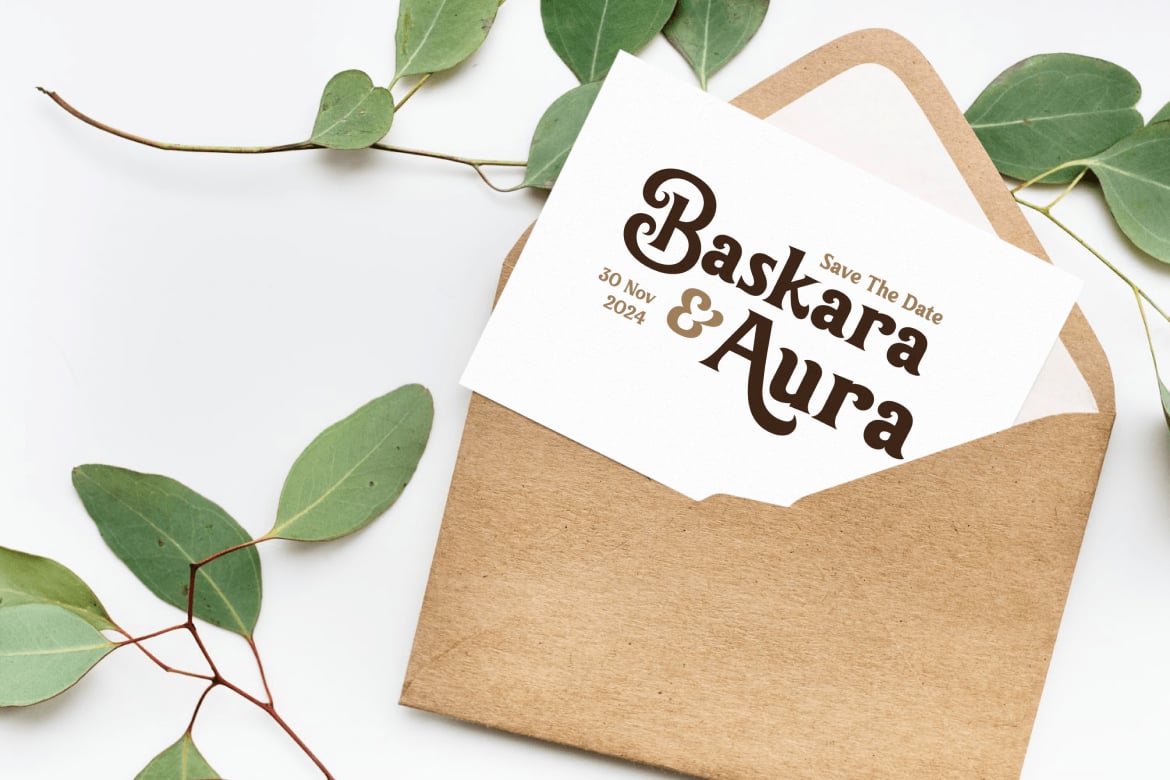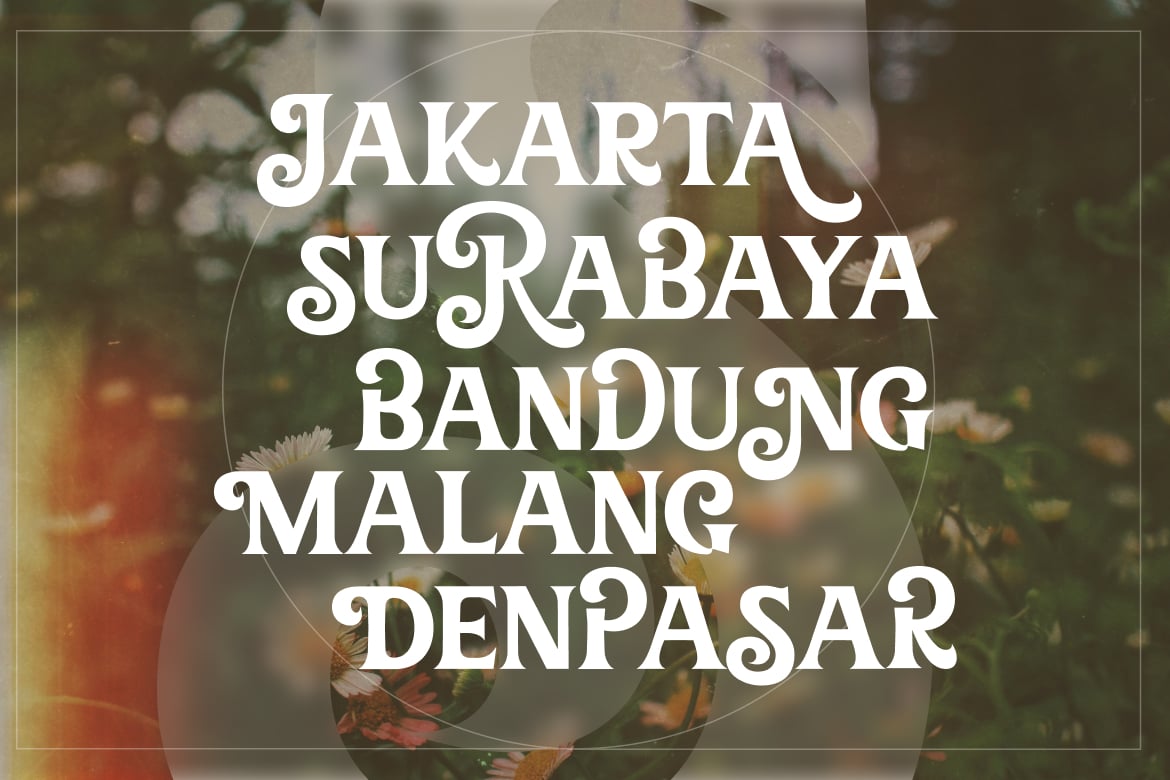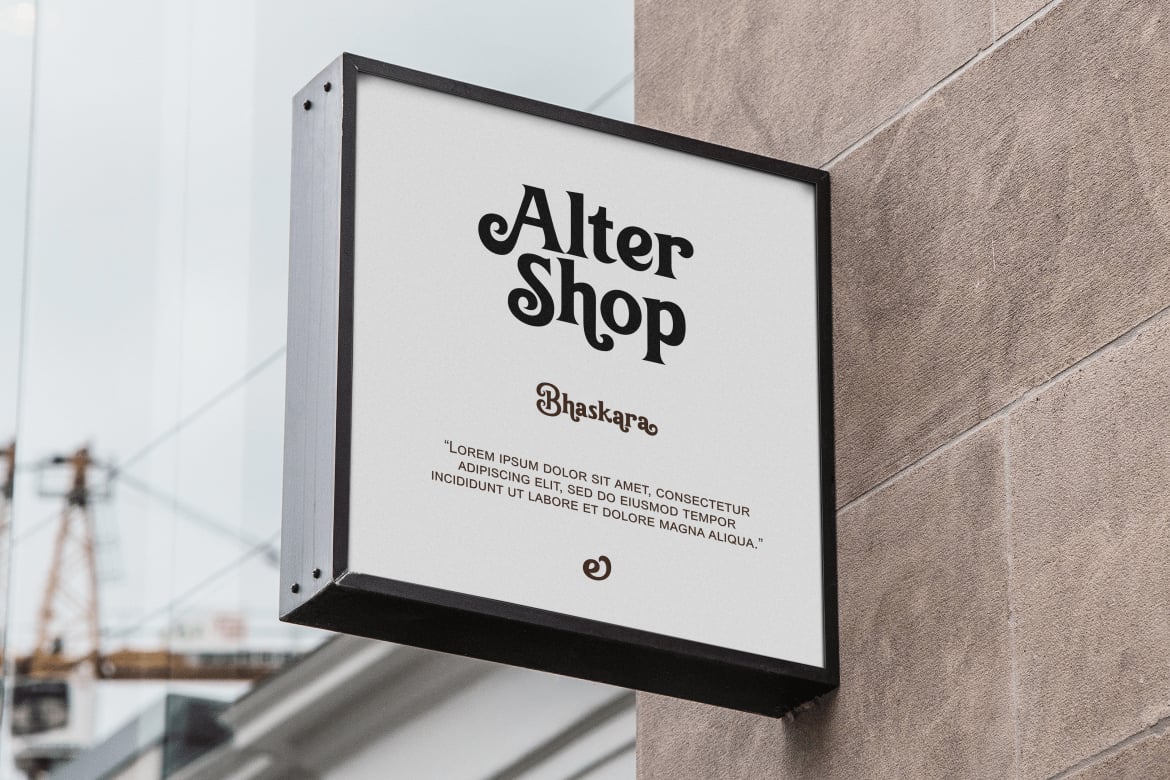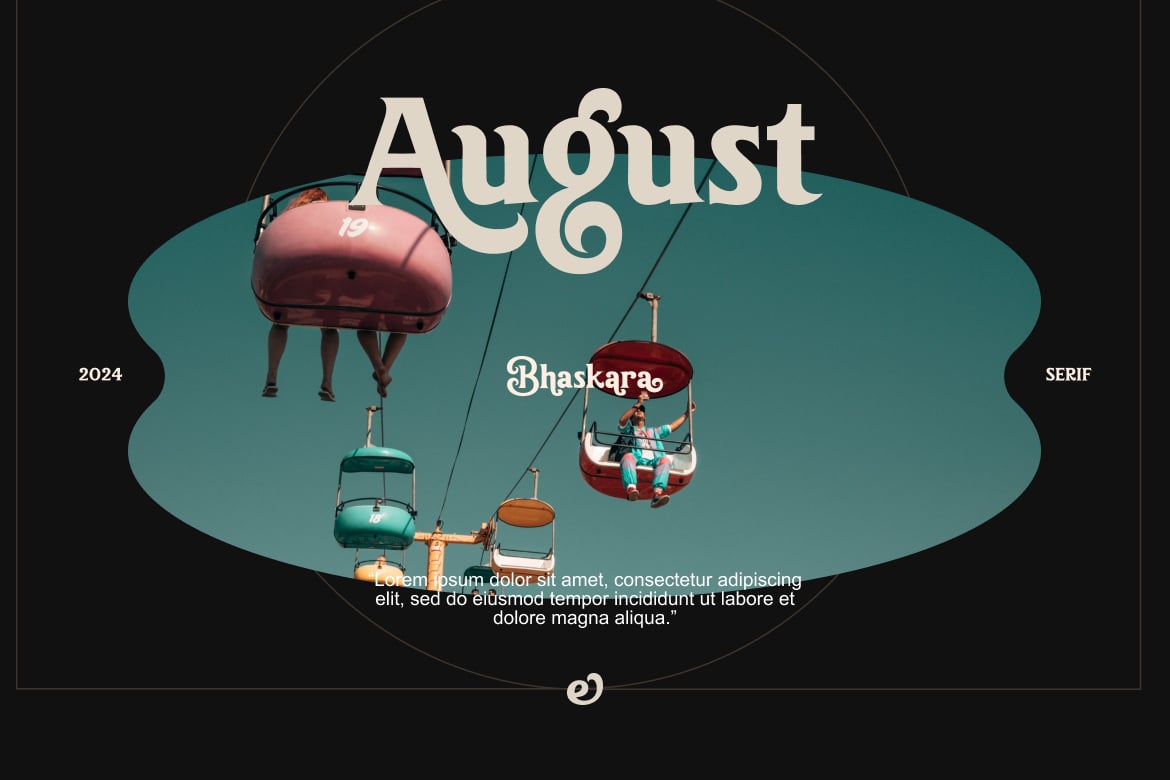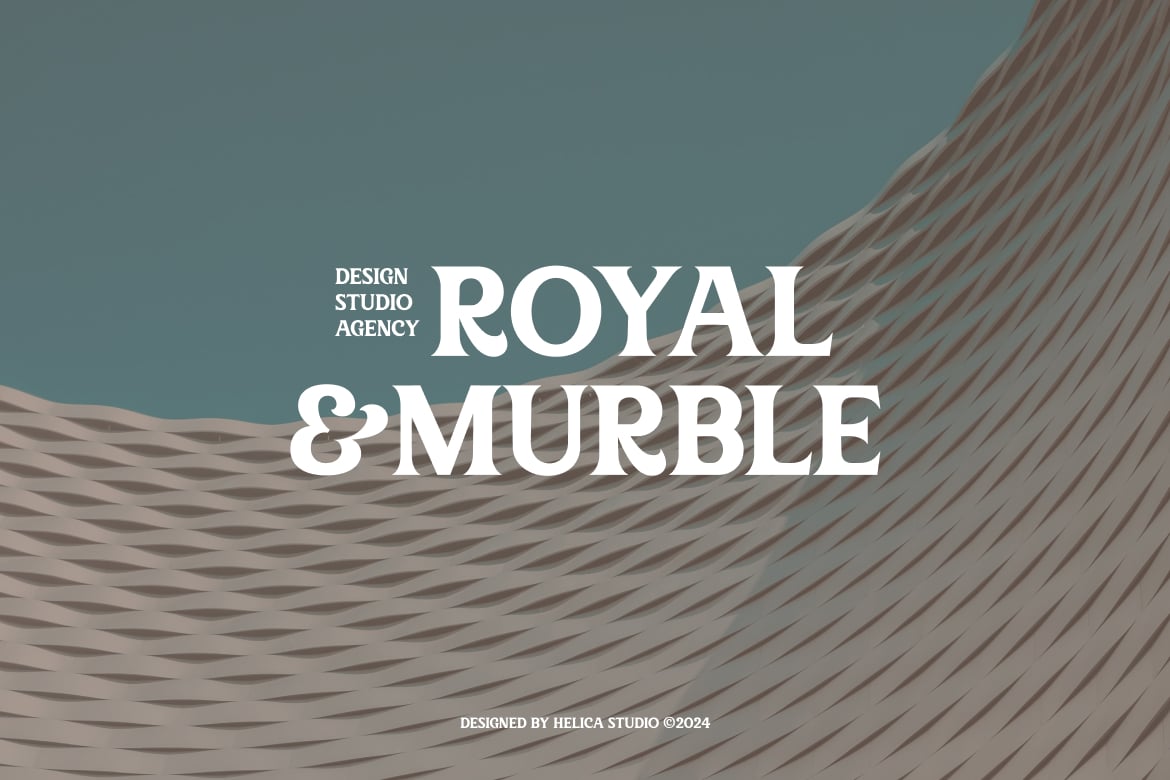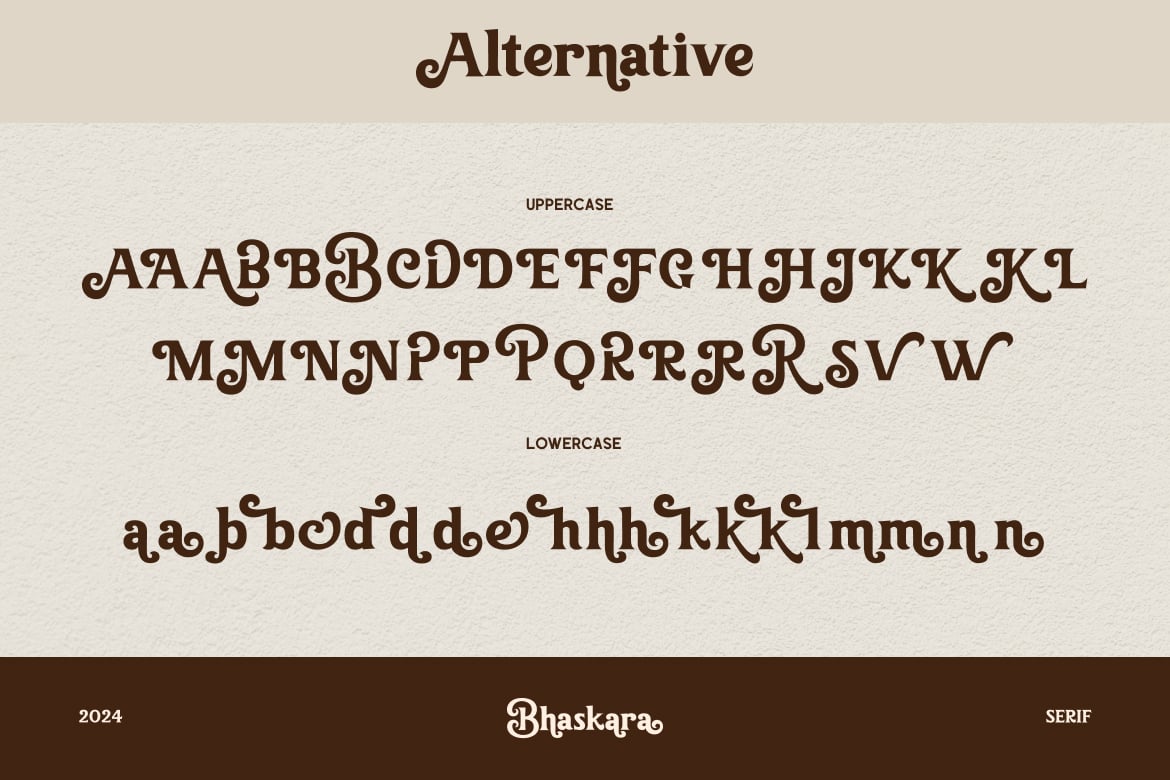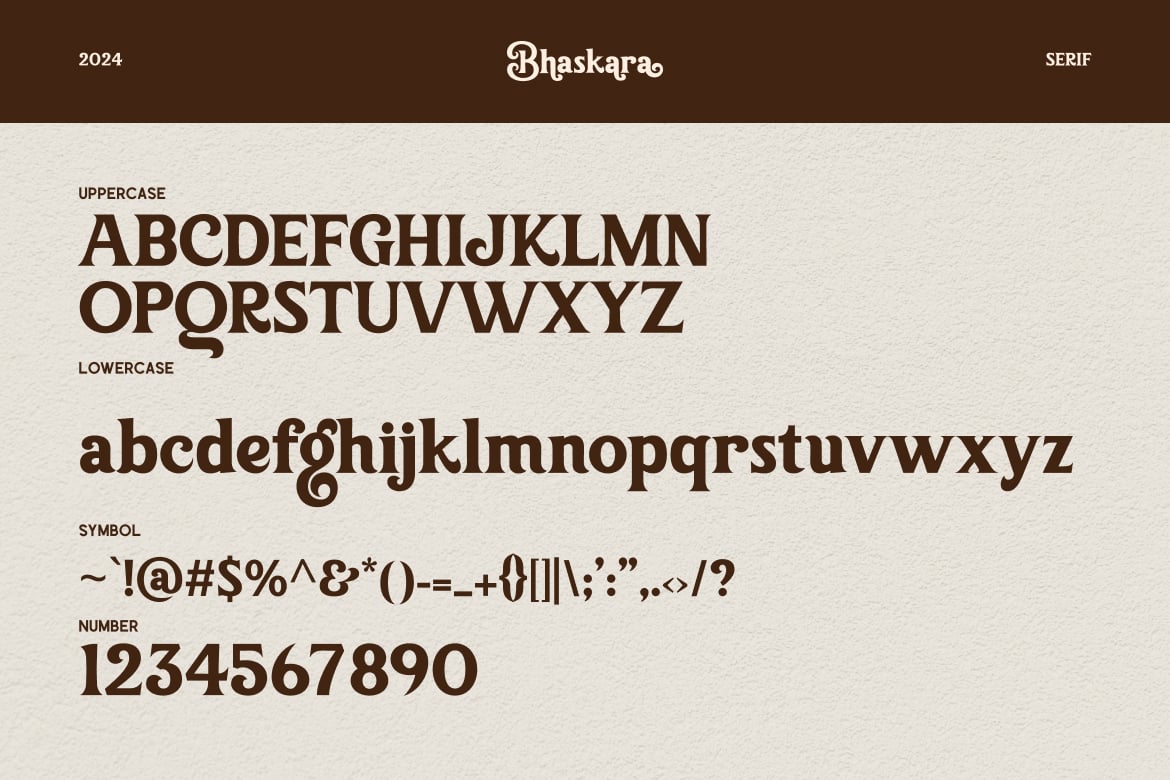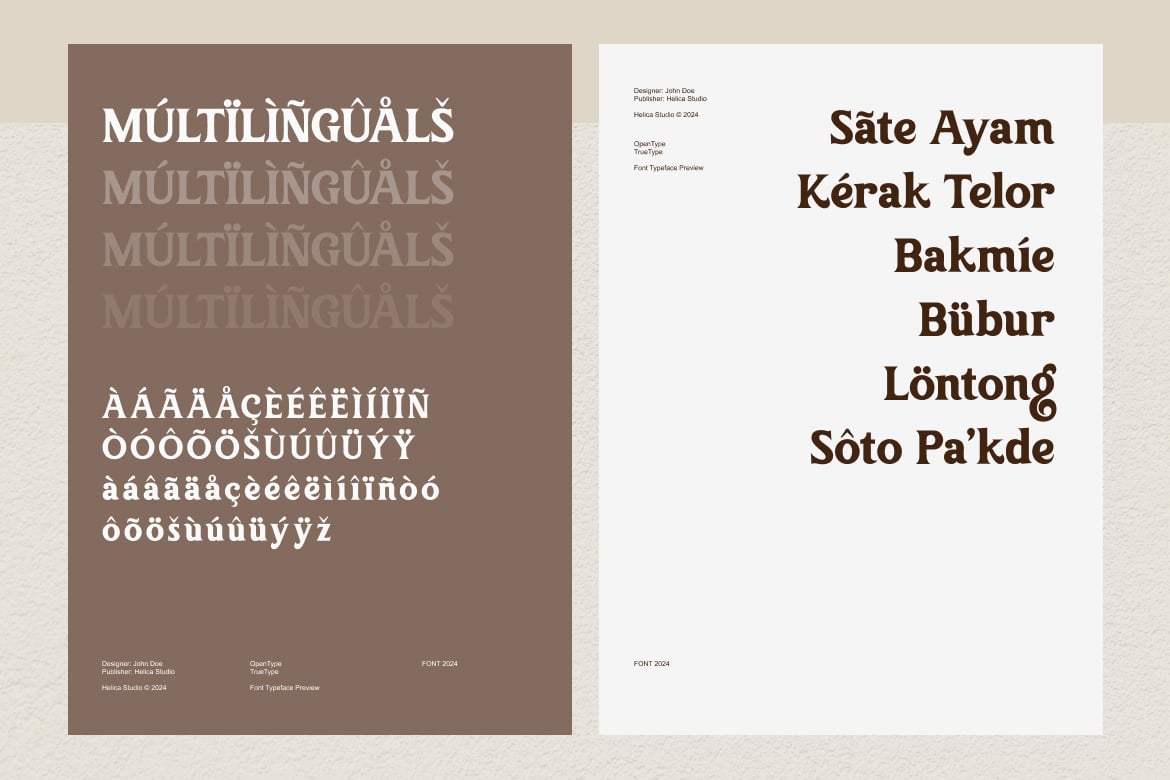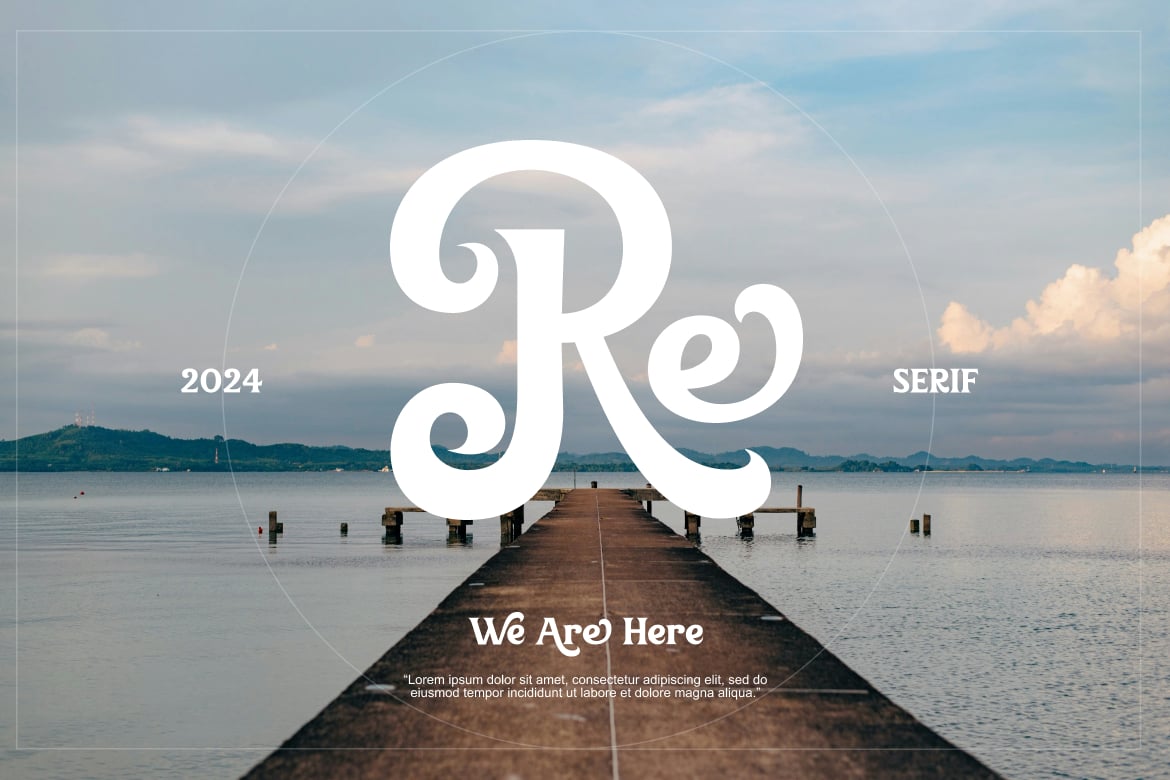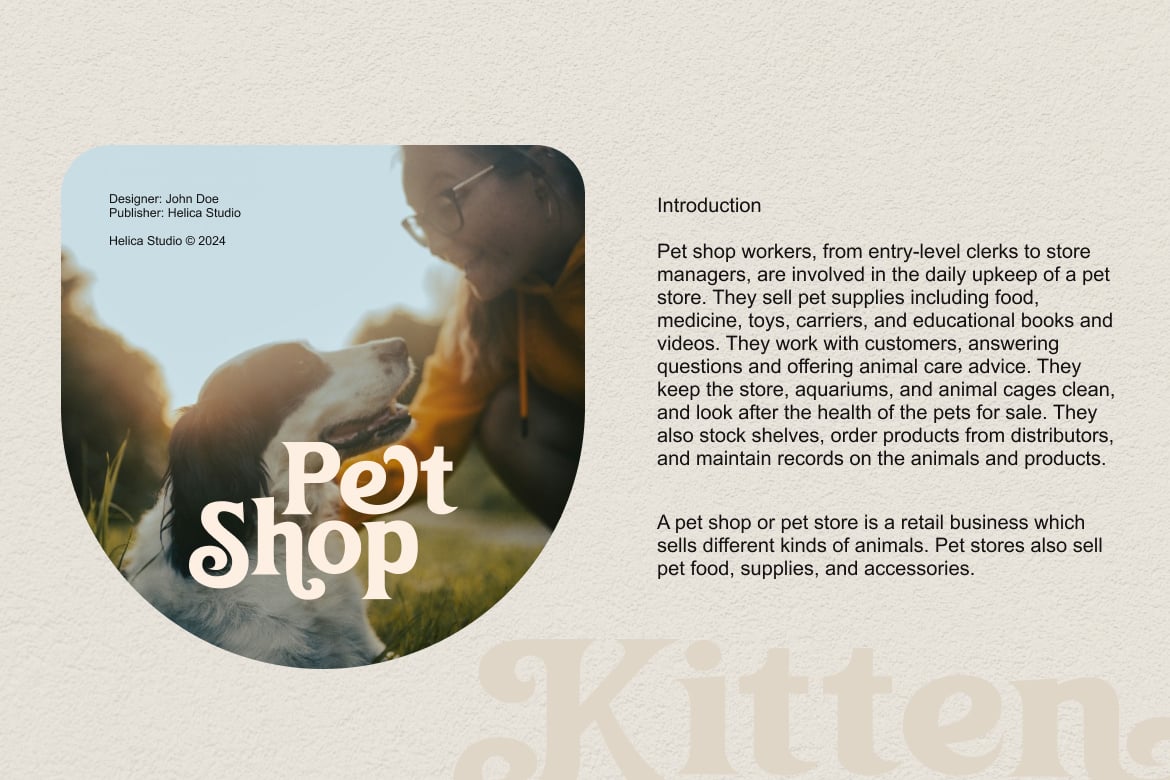
Baskara Modern Luxury Serif Font
Baskara Modern Luxury Serif Font is a font that brings back memories, giving off a cool, modern, and fun vibe. It’s great for making designs that feel like they’re from the 1960s or 1970s, with nice options that add a vintage touch to logos, business cards, and making it perfect for getting that real vintage feel!